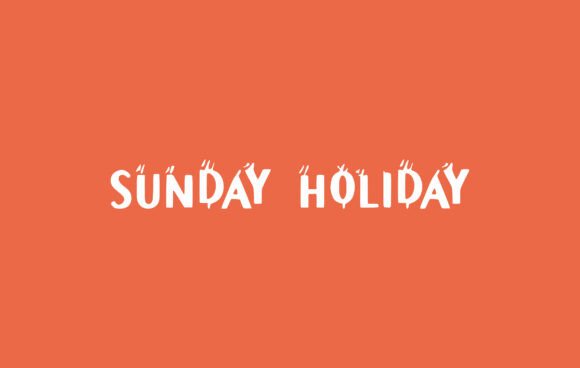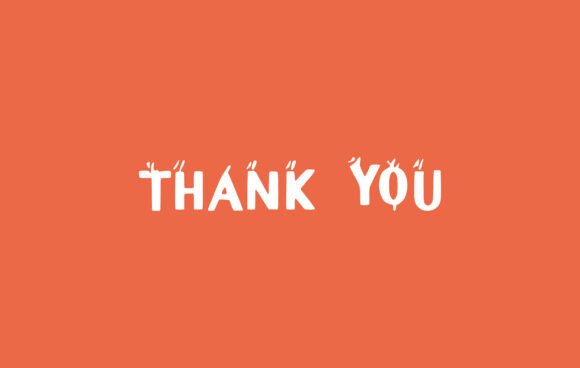
Discover the Charm of Elodie Font: Elevate Your Designs with a Romantic Touch
In the world of typography, few fonts manage to capture the essence of elegance and romance as effortlessly as the Elodie font. This authentic handwritten font is a masterpiece of modern design, boasting a unique blend of sophistication and whimsy that is sure to make it a favorite among designers and crafters alike. Whether you’re looking to add a touch of personality to your branding, create stunning magazine headlines, or craft beautiful wedding invitations, Elodie font is the perfect choice.
The Characteristics of Elodie Font
So, what sets Elodie font apart from other fonts in its class? For starters, its authentic handwritten feel gives it a distinctly personal and approachable vibe. This makes it ideal for designs where you want to connect with your audience on a more intimate level. Additionally, the font’s romantic touch adds a layer of sophistication and elegance, making it perfect for more formal applications.
Another key feature of Elodie font is its exceptional legibility. Unlike some handwritten fonts that can be difficult to read, especially at smaller sizes, Elodie font is clear and easy to decipher, making it suitable for use as both title and body text. This versatility is a major advantage for designers, as it allows you to use the font across a wide range of applications without sacrificing readability.
Endless Design Possibilities with Elodie Font
One of the most exciting things about Elodie font is its incredible flexibility. Its unique blend of elegance and playfulness makes it suitable for a wide range of design projects, including:
- Magazine Headlines: Add a touch of glamour to your magazine with Elodie font. Its bold, yet elegant lines make it perfect for grabbing the reader’s attention.
- Social Media: Stand out on social media with eye-catching graphics and posts created using Elodie font. Its friendly, approachable feel makes it ideal for engaging with your audience.
- Branding: Give your brand a personality boost with Elodie font. Its unique charm and character can help you establish a strong visual identity.
- Wedding Invitations: Make your wedding invitations truly special with Elodie font. Its romantic touch and elegant lines make it perfect for sharing your big day with loved ones.
- Cards and Stationery: Add a personal touch to your cards and stationery with Elodie font. Its whimsical feel makes it ideal for creating beautiful, one-of-a-kind designs.
Why Designers and Crafters Love Elodie Font
Elodie font has quickly become a go-to choice among designers and crafters, and for good reason. Here are just a few reasons why:
- Unique and Authentic: Elodie font offers a fresh alternative to more traditional fonts. Its authentic handwritten feel and romantic touch make it a standout in any design.
- Highly Legible: Unlike some handwritten fonts, Elodie font is exceptionally easy to read, making it perfect for use in a variety of applications.
- Versatile: Whether you’re working on a formal or informal project, Elodie font is up to the task. Its flexibility makes it a valuable addition to any designer’s toolkit.
In conclusion, Elodie font is a true gem in the world of typography. Its unique blend of elegance, romance, and playfulness makes it the perfect choice for designers and crafters looking to elevate their designs. With its exceptional legibility, versatility, and authentic handwritten feel, Elodie font is sure to become a favorite in your design arsenal. So why wait? Discover the charm of Elodie font for yourself and take your creative projects to new heights.